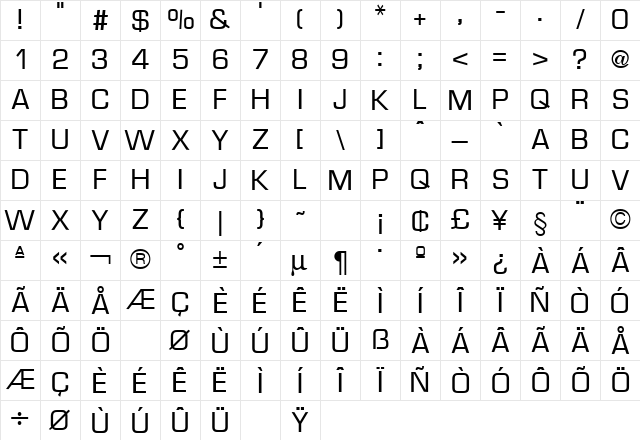
Micro Technic Regular Free Font
Micro Technic Regular
Design Context for Micro Technic
Micro Technic has a distinctly futuristic character, with geometric precision and clean angles that feel at home in technology, gaming, and sci-fi contexts.